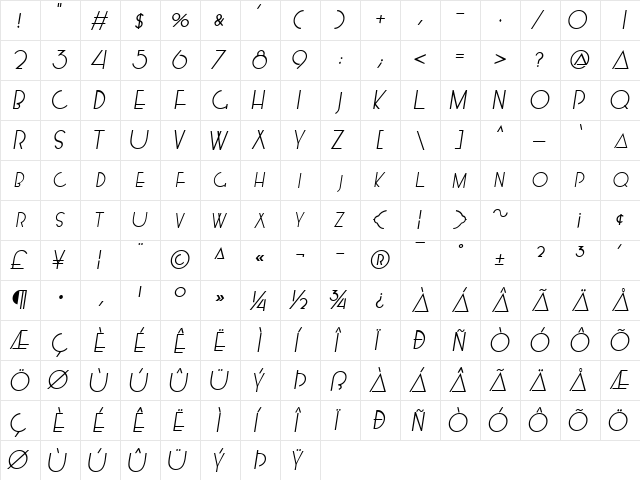
KendraSCapsSSK Italic Font Preview
KendraSCapsSSK Italic
Design Context for KendraSCapsSSK Typeface
KendraSCapsSSK takes a measured approach to typography — its balanced proportions and neutral character make it a reliable workhorse for both digital and print work. Its italic angle brings a sense of urgency and motion to the letterforms.
Pro Tip: Try KendraSCapsSSK for annotation and caption copy alongside an upright companion — the contrast in angle creates a dynamic but ordered typographic system.